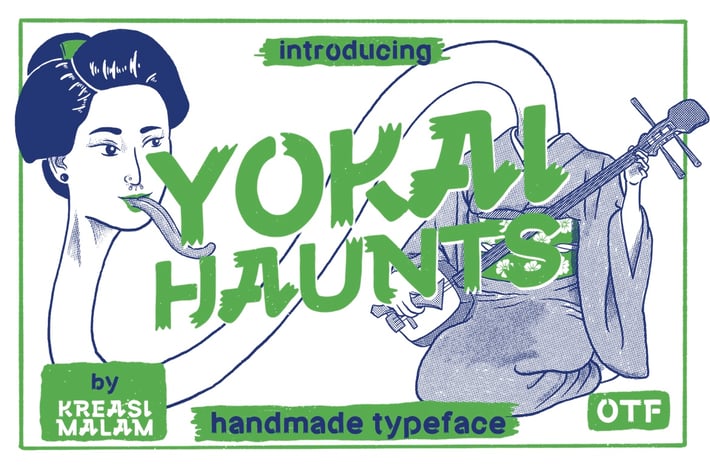
Yokai Haunts Font
Yokai Haunts is a handmade font with Japanese style would be awesome for your design projects. It could be fitted for logos, quotes, t-shirts, posters or anything. Available in uppercase, lowercase, numerals and punctuations.